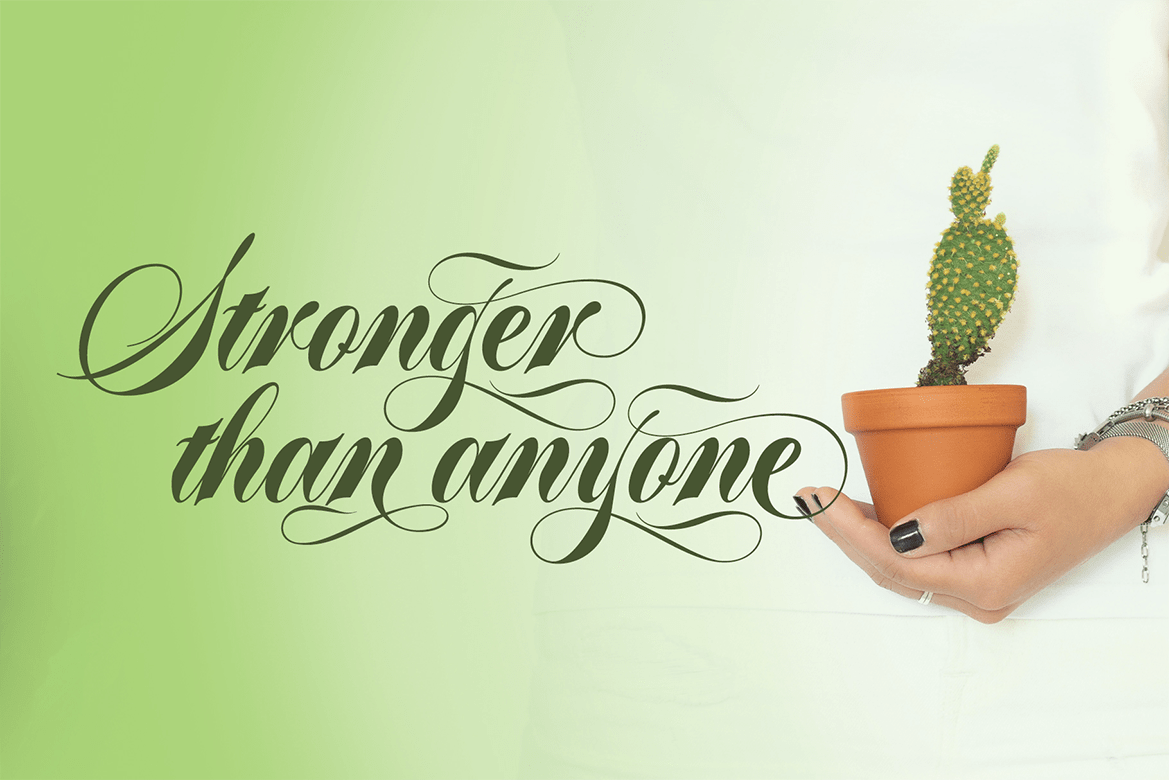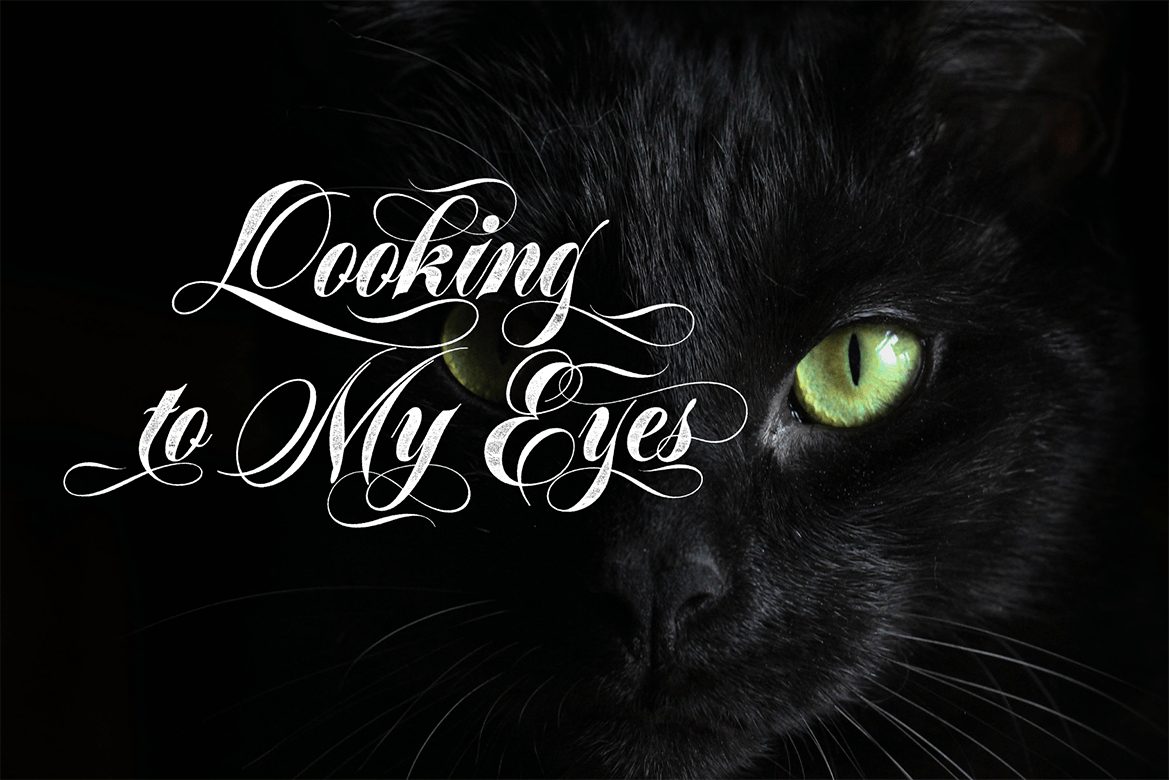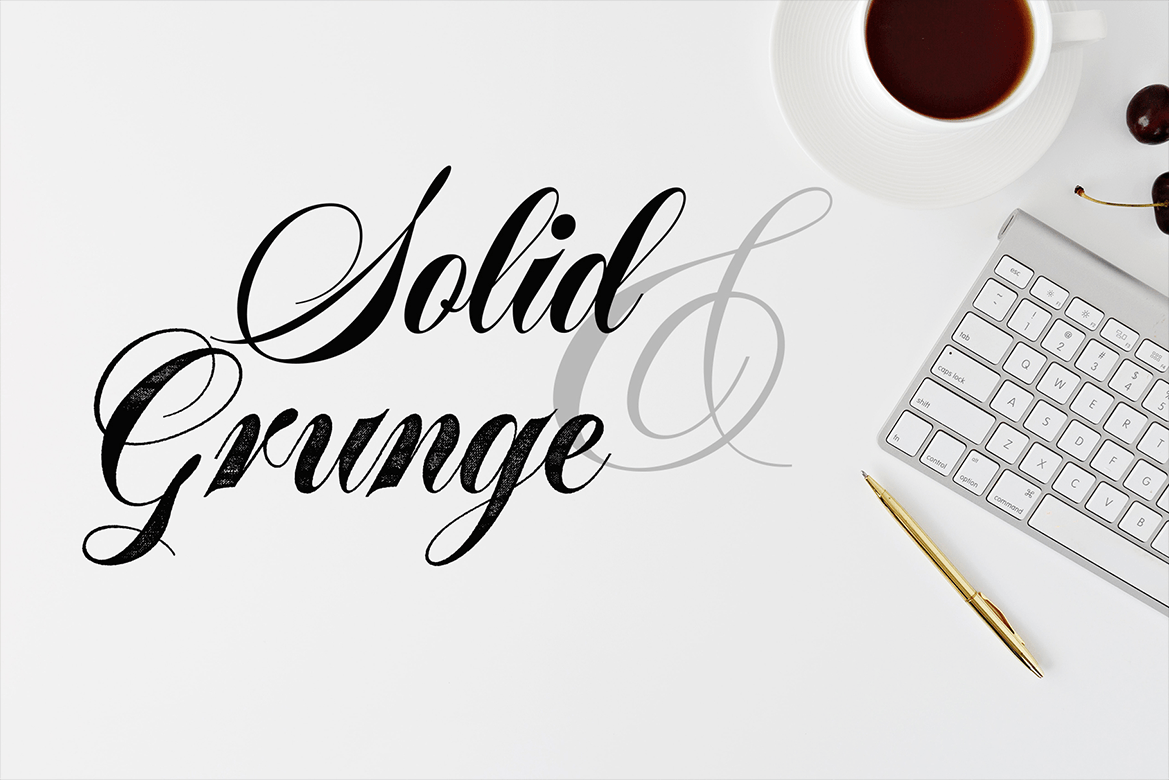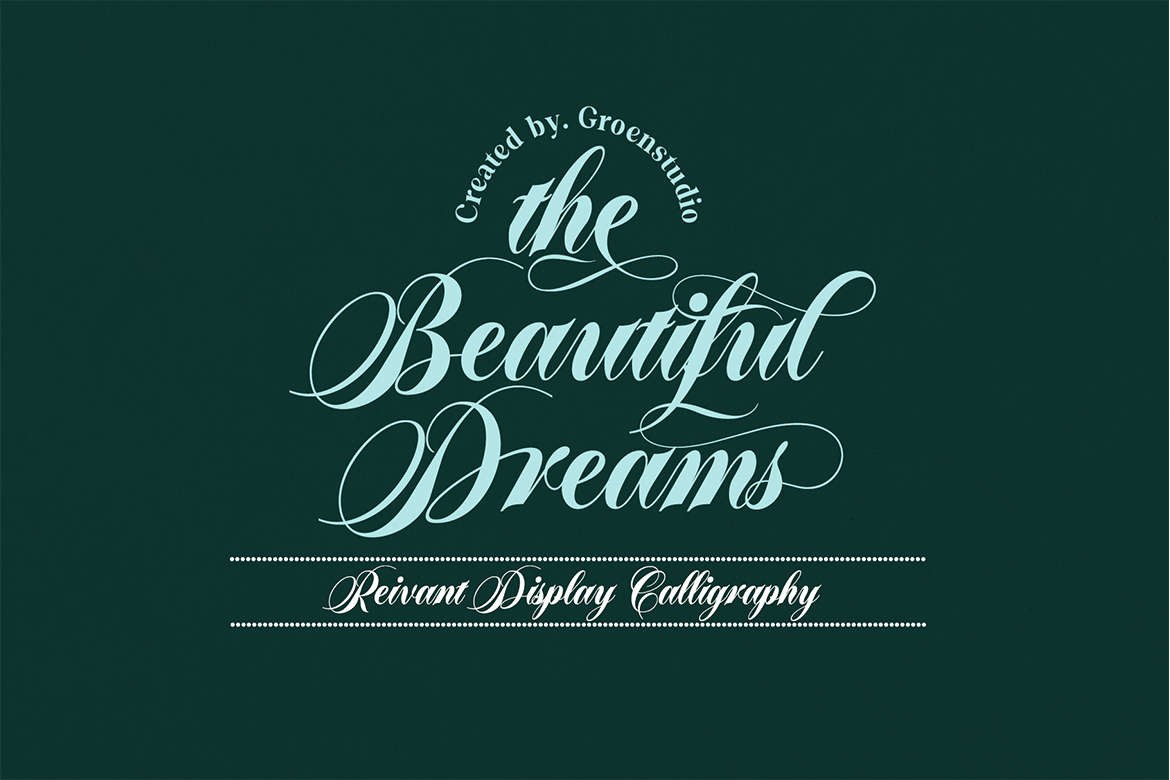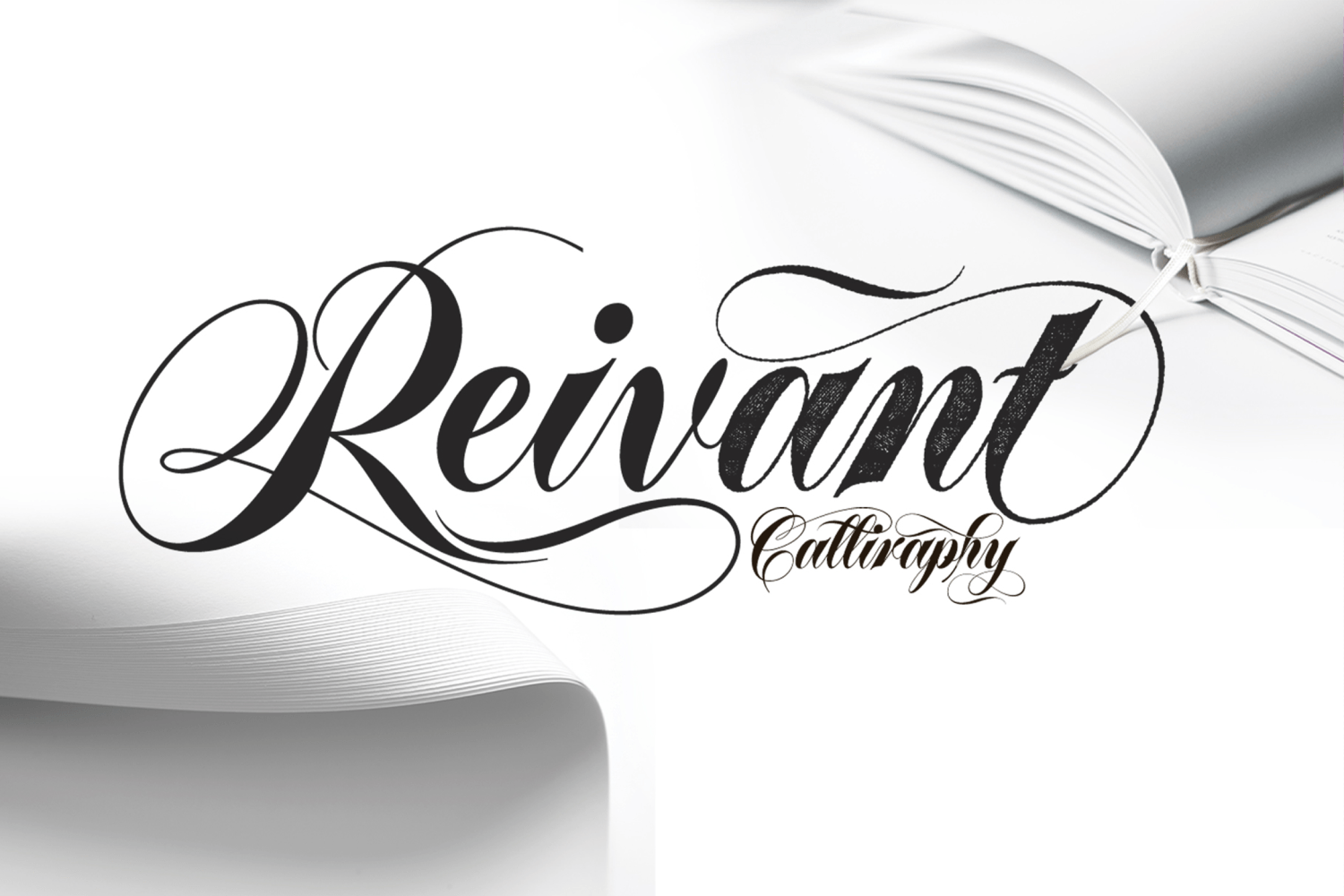
Reivant
Reivant is a script font, so this beautiful and unique script font is a model of modern calligraphy typography combined with calligraphy writing style.
Reivant Grunge is a script font, so it's made with a different touch, namely it has a cracked texture and the style is the same as Reivant Regular.
The Features of this fonts is:
- Contextual Alternates
- Standart ligatures
- Discretionary ligatures
- Swash Alternates
- Stylistic Alternates
- Stylistic sets
Can be used for various purposes. such as headings, logos, wedding invitations, t-shirts, letterheads, signage, labels, news, posters, badges etc. To enable the OpenType Stylistic alternative, you need a program that supports OpenType features such as Adobe Illustrator CS, Adobe Indesign & CorelDraw X6-X